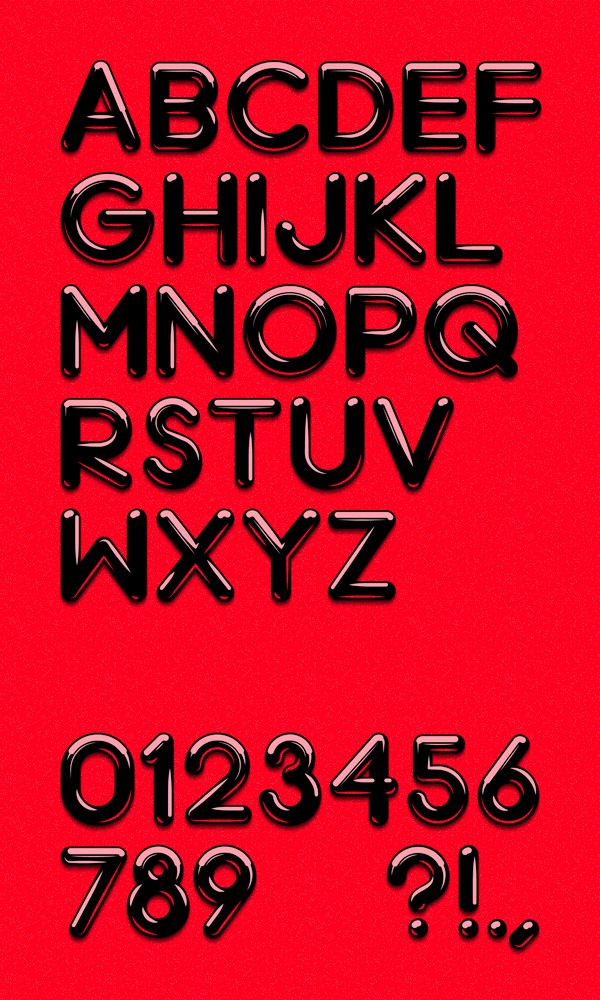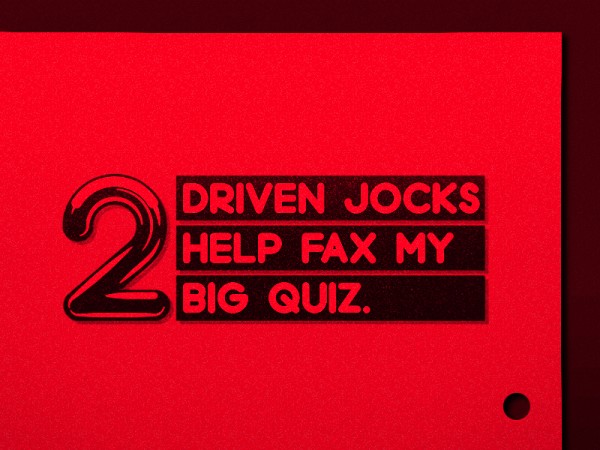
Today’s daily freebie is a font face called Chrome by Artem Sukhinin from the UK. This light version is a preview for the upcoming font family with full glyphs. The free download comes in two variations – ‘Chrome’ and ‘Chrome Black’.
It also comes with a full set of letters, numbers and four punctuation marks. The font is extremely versatile and a godsend for graphic designer doing print, web, packaging and more. Get this awesomeness after the jump!